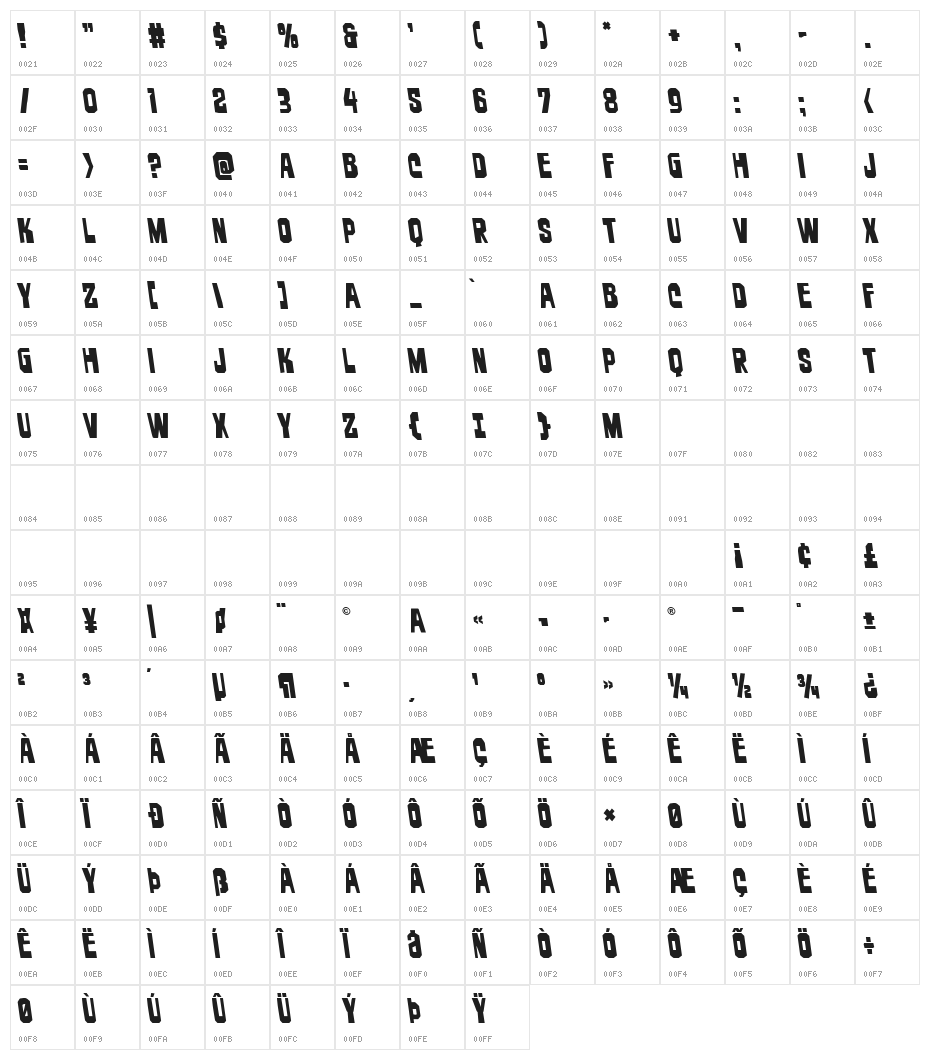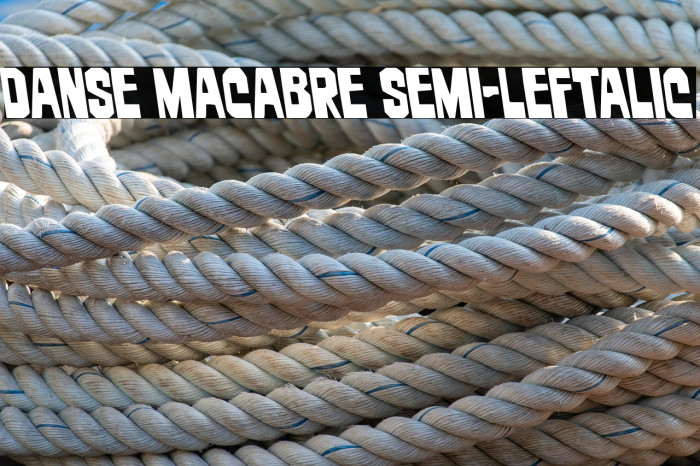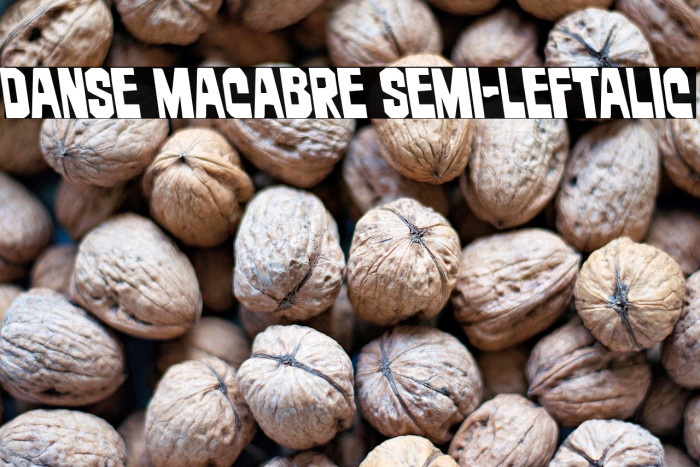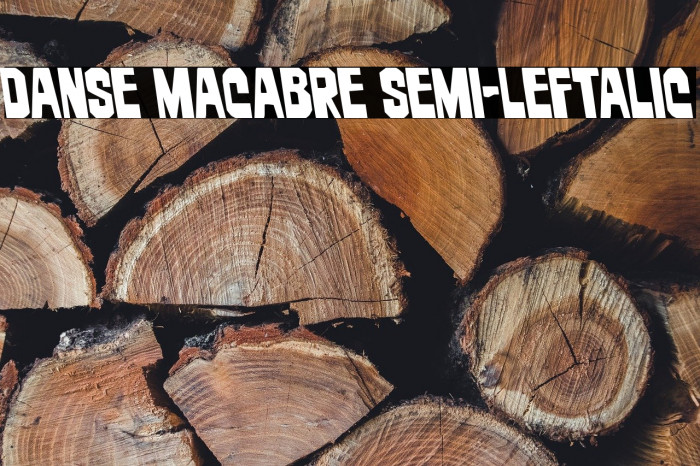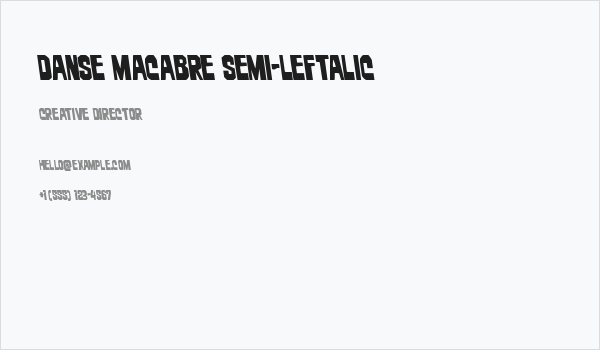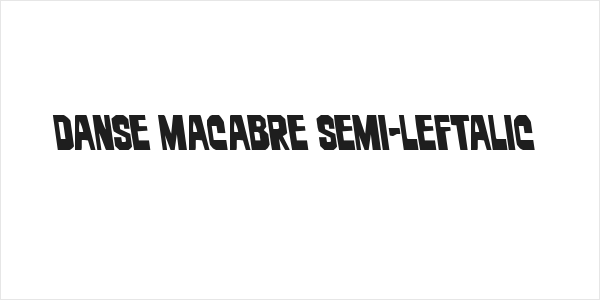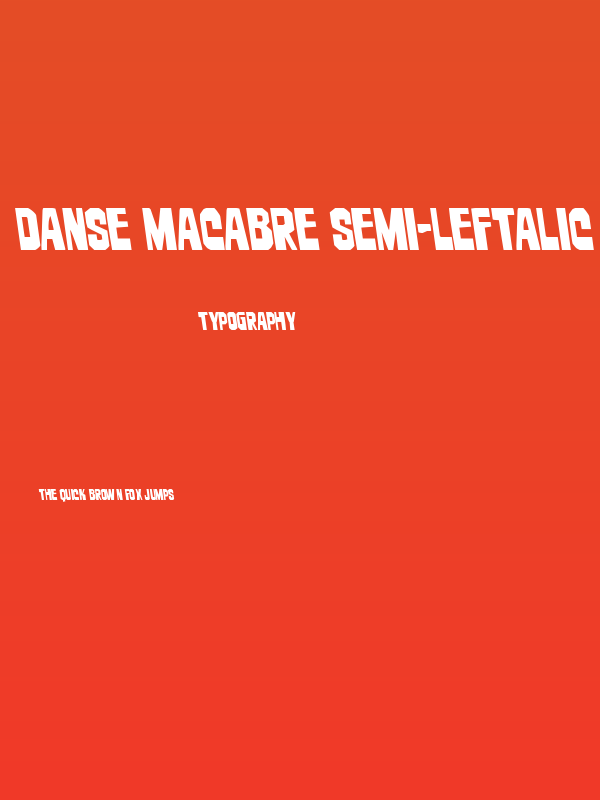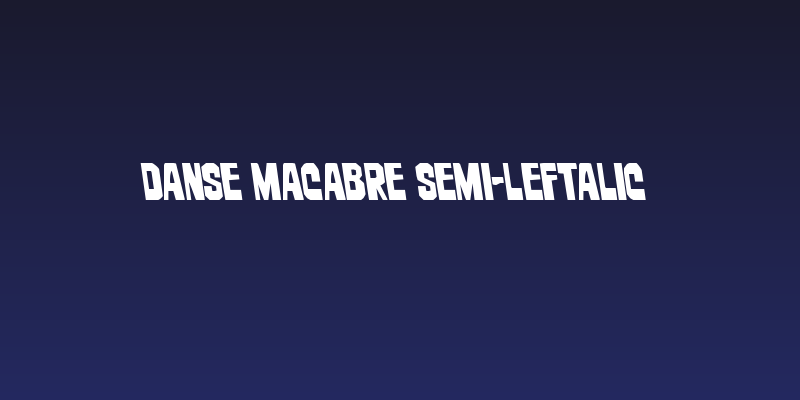
Danse Macabre Semi-Leftalic Font
Danse Macabre Semi-Leftalic Description
This font features a bold and dynamic style with a distinct left-leaning slant, giving it a sense of motion and energy. The characters are heavily stylized with angular cuts and sharp edges, creating a strong visual impact. The uppercase and lowercase letters maintain a consistent weight, contributing to a cohesive appearance. The numbers and special characters follow the same design principles, ensuring uniformity across all glyphs. This font's unique design makes it stand out, ideal for projects that require a bold statement.
| Proposed Projects | Ideal for posters, album covers, video game titles, and branding that requires a bold and dynamic look. |